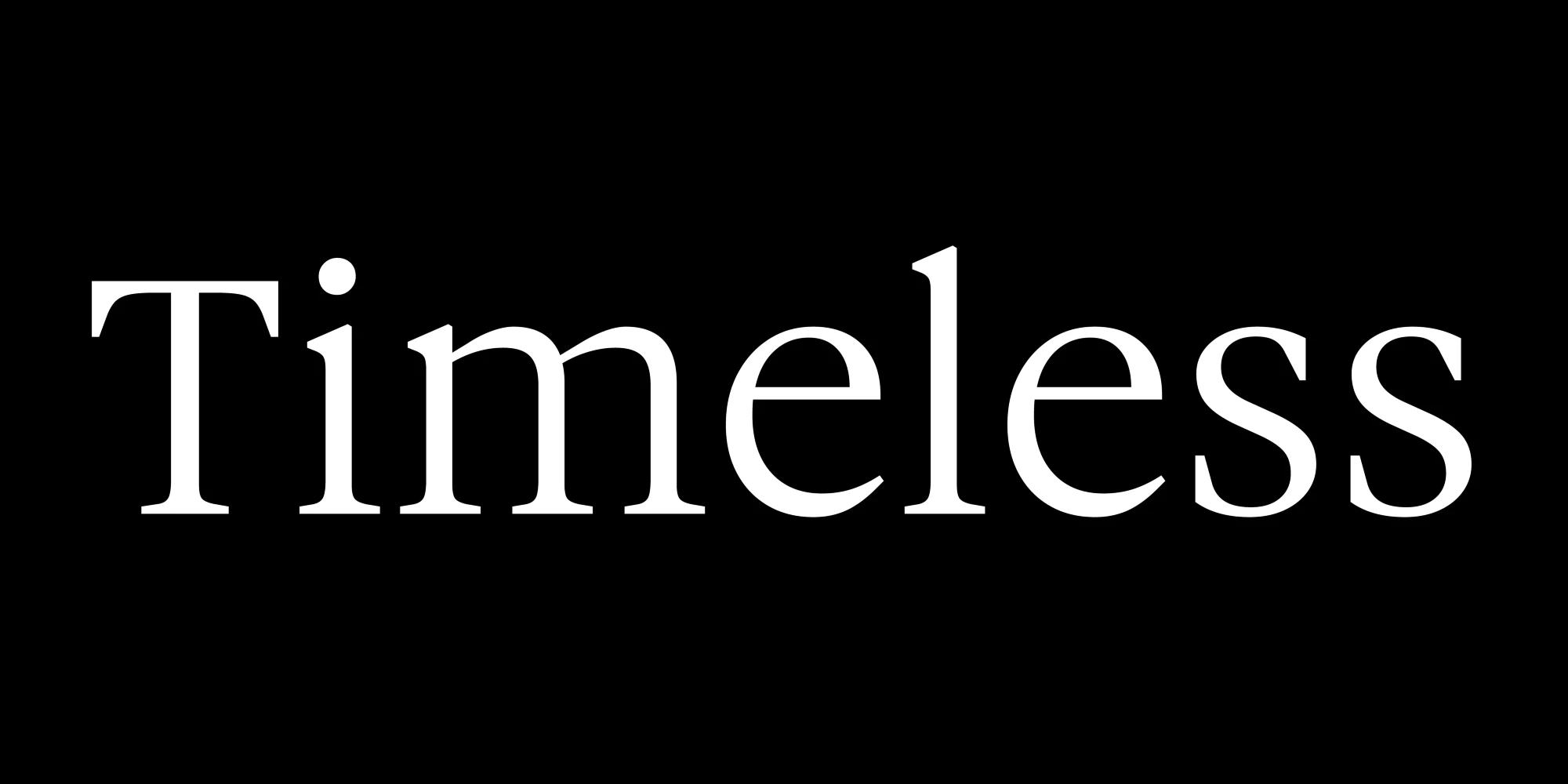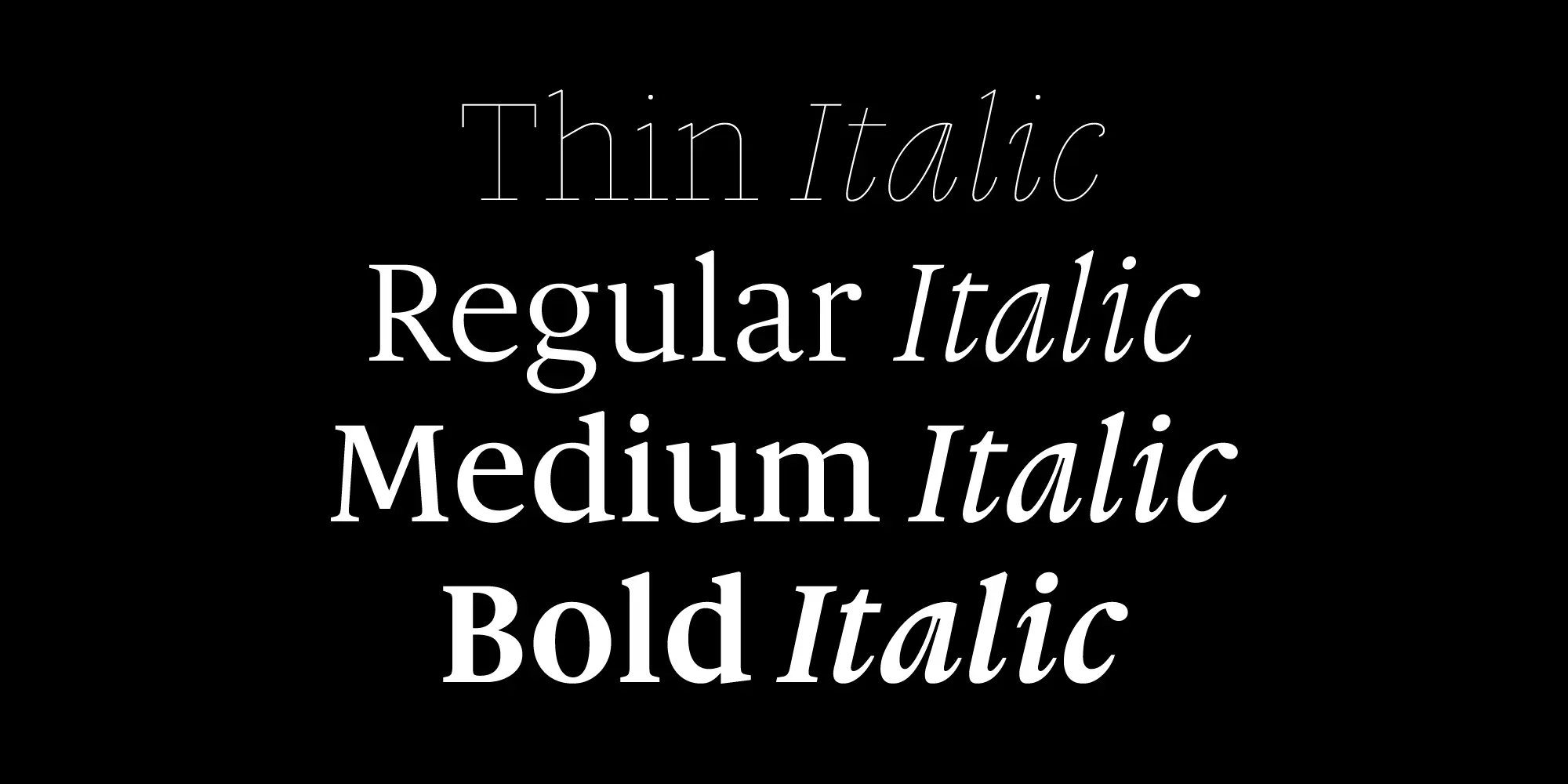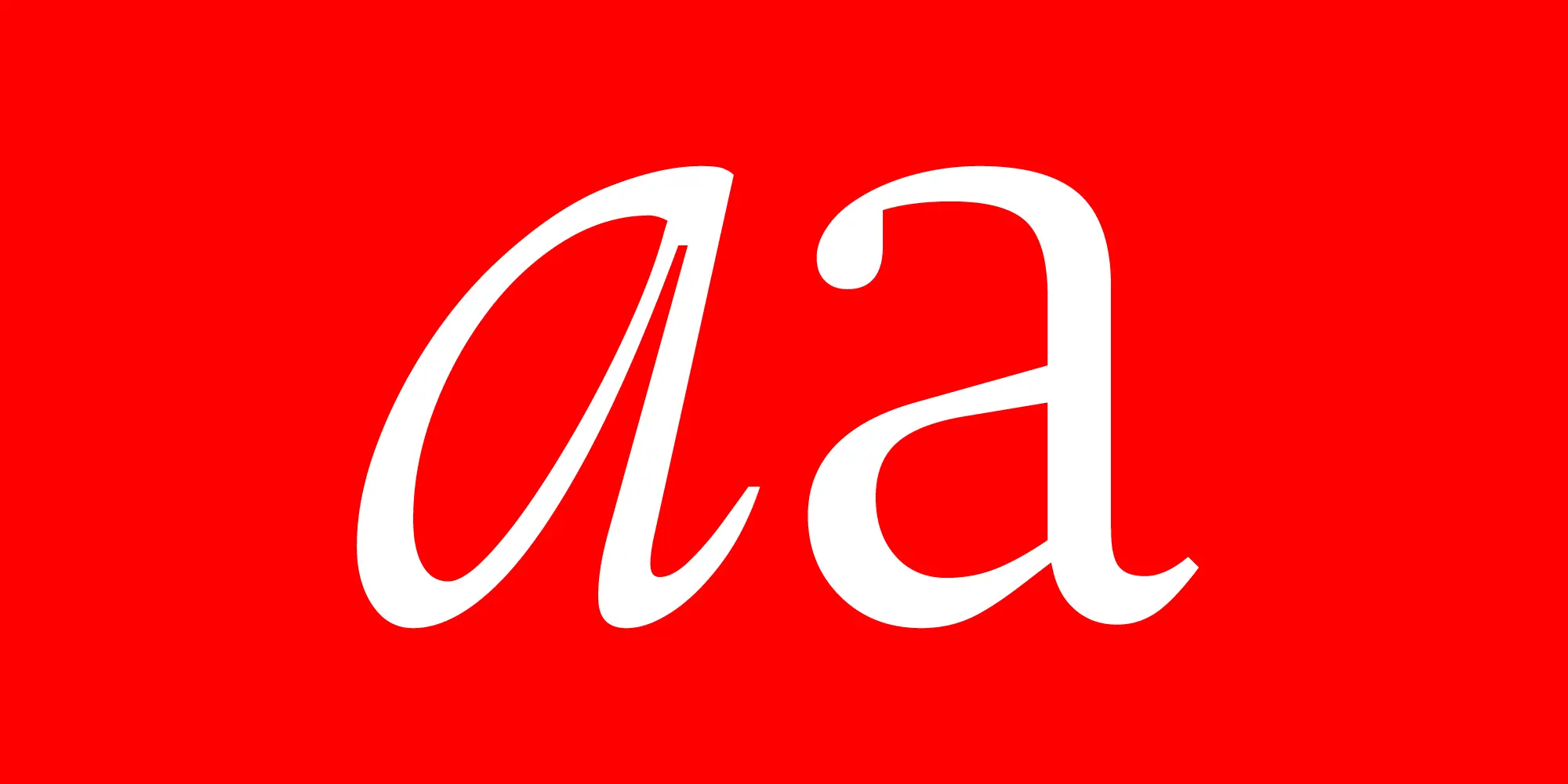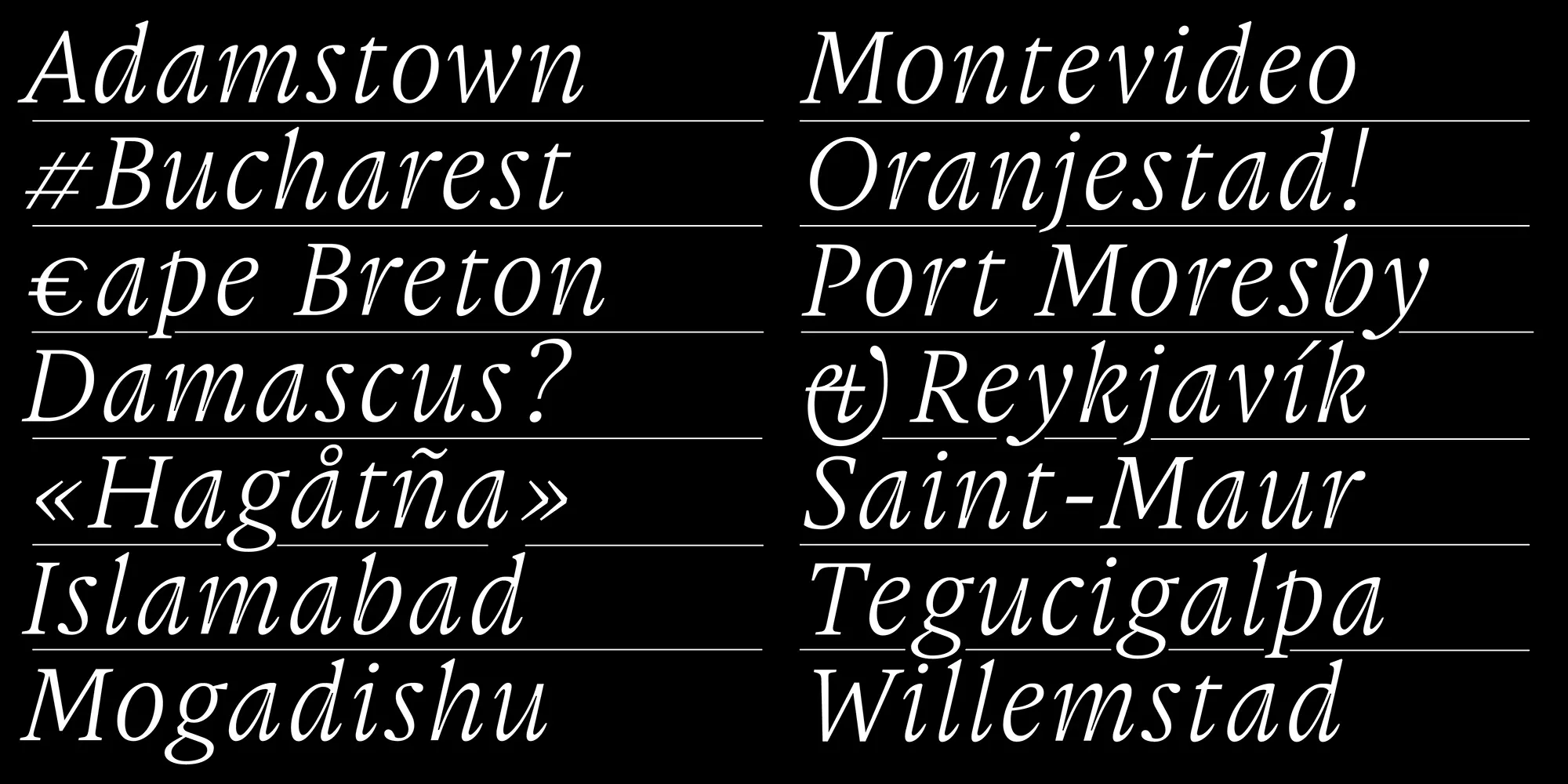
Gauthier FY is a contemporary old style serif inspired by Renaissance typefaces, with capitals standing just short of ascenders, a tall x-height for readability, and a refined italic, influenced by punchcutter Granjon, adds detail and elegance, making it suitable for both text and display. A monolinear Display Thin style pairs seamlessly to create striking contrasts. Fresh and elegant, it shines in editorial designs, packaging, headlines, and posters.
Features
OpenType Features
- Common Ligatures
- Discretionary Ligatures
- Fractions
- Lining Numerals
- Old Style Numerals
- Ordinal Numerals
- Proportional Numerals
- Small Capitals
- Small Capitals for Capitals
- Stylistic Sets
- Subscript
- Superscript
- Tabular Numerals